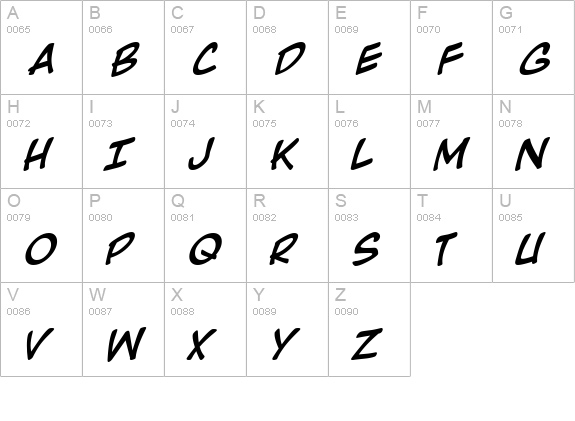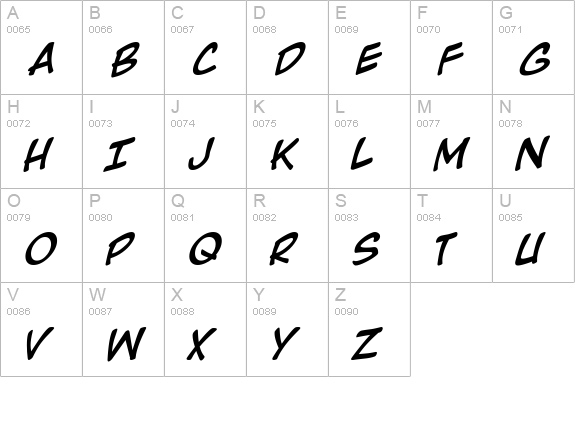
Rooftop Run Italic Font Details
Rooftop Run Italic is a distinctive, italic variant in the Rooftop typeface family \xE2\x80\x94 well suited to design and typography projects.
Rooftop Run Italic font exudes a sense of urban energy and modern flair. With its sleek and dynamic design, this font is perfect for adding a touch of sophistication to any project. The italicized style gives it a sense of movement and vitality, making it ideal for use in headings, logos, and other standout design elements. And the best part? Rooftop Run Italic font is available for free download at FontsMarket.com, allowing you to access this stylish typeface without any cost. Don't miss out on the opportunity to elevate your designs with this versatile and eye-catching font.